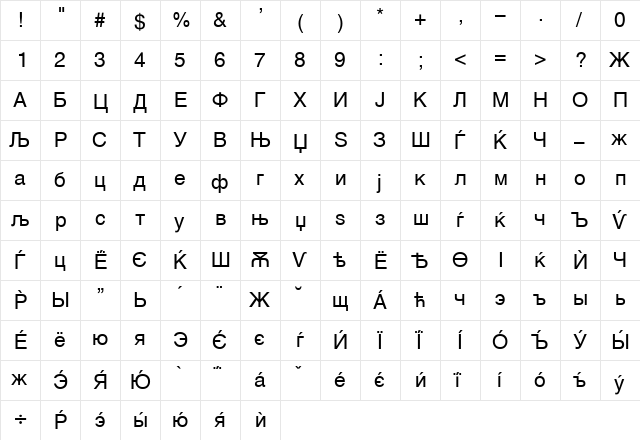
MakCirH Regular
Design Context for MakCirH Typeface
MakCirH offers clean, dependable letterforms without strong stylistic allegiance, making it a practical choice for designers who need flexibility.